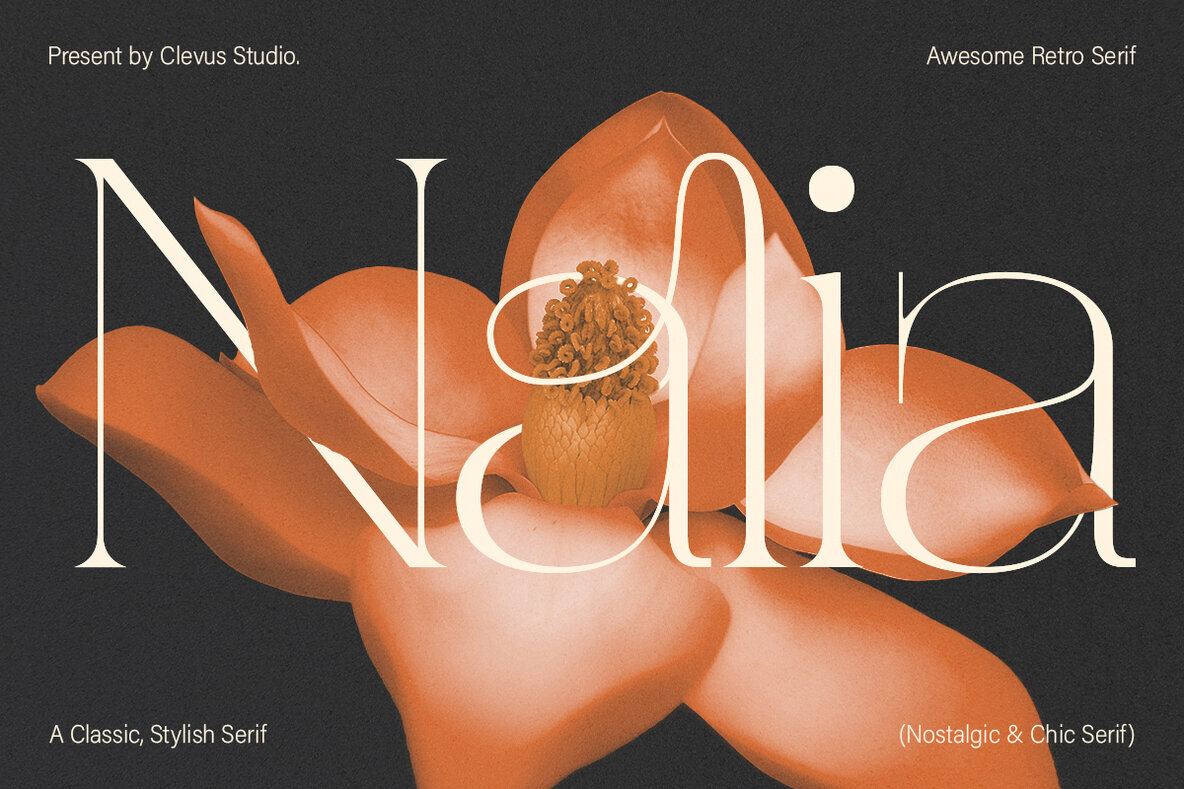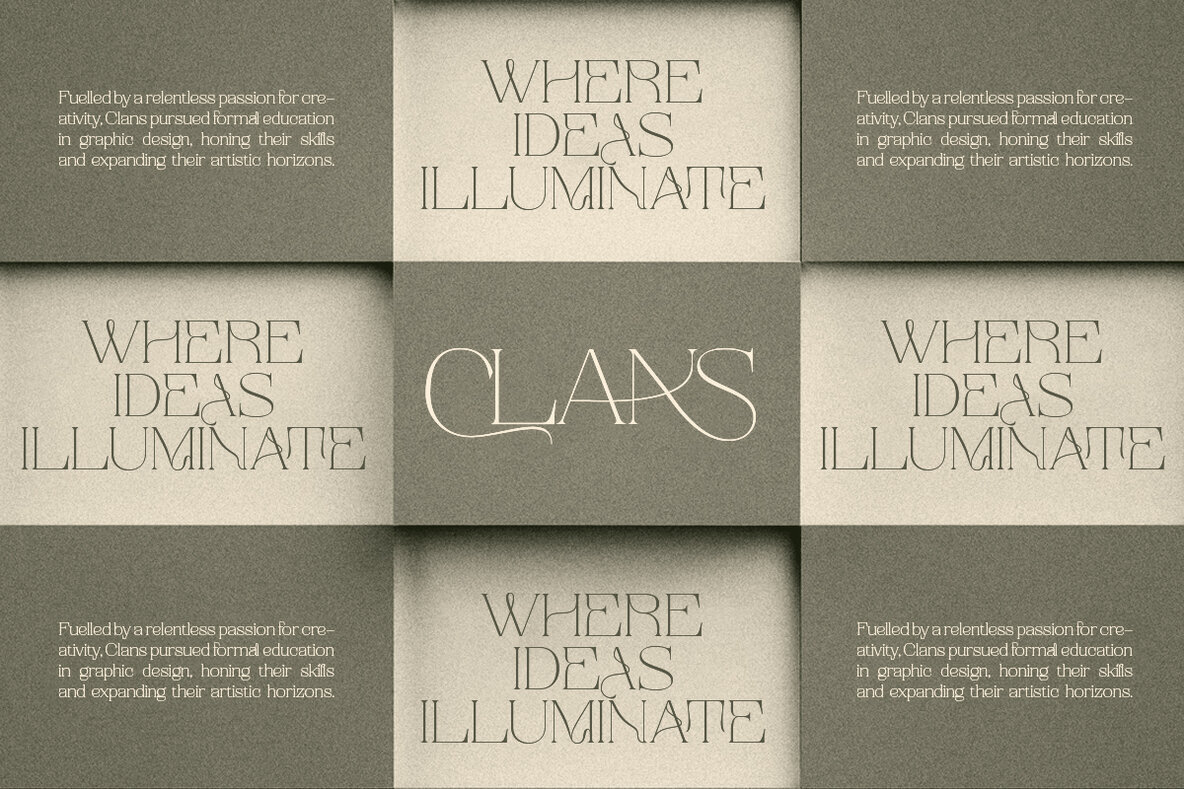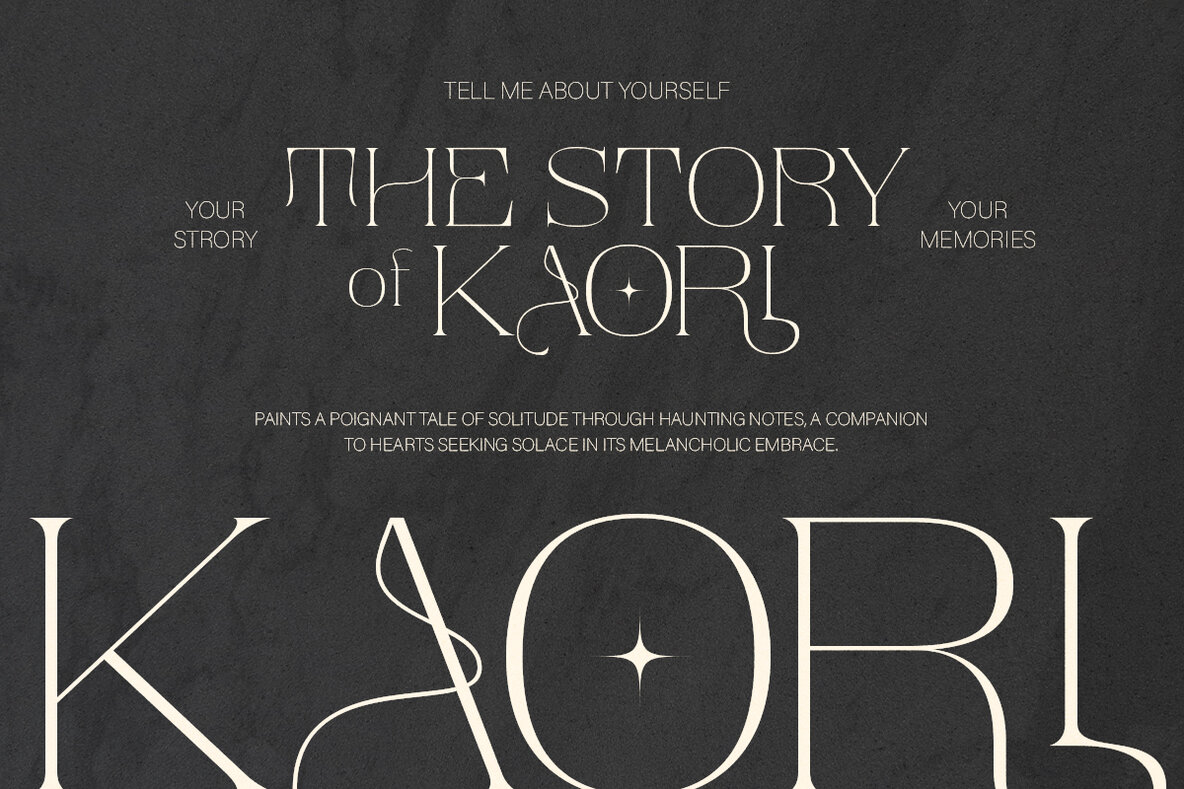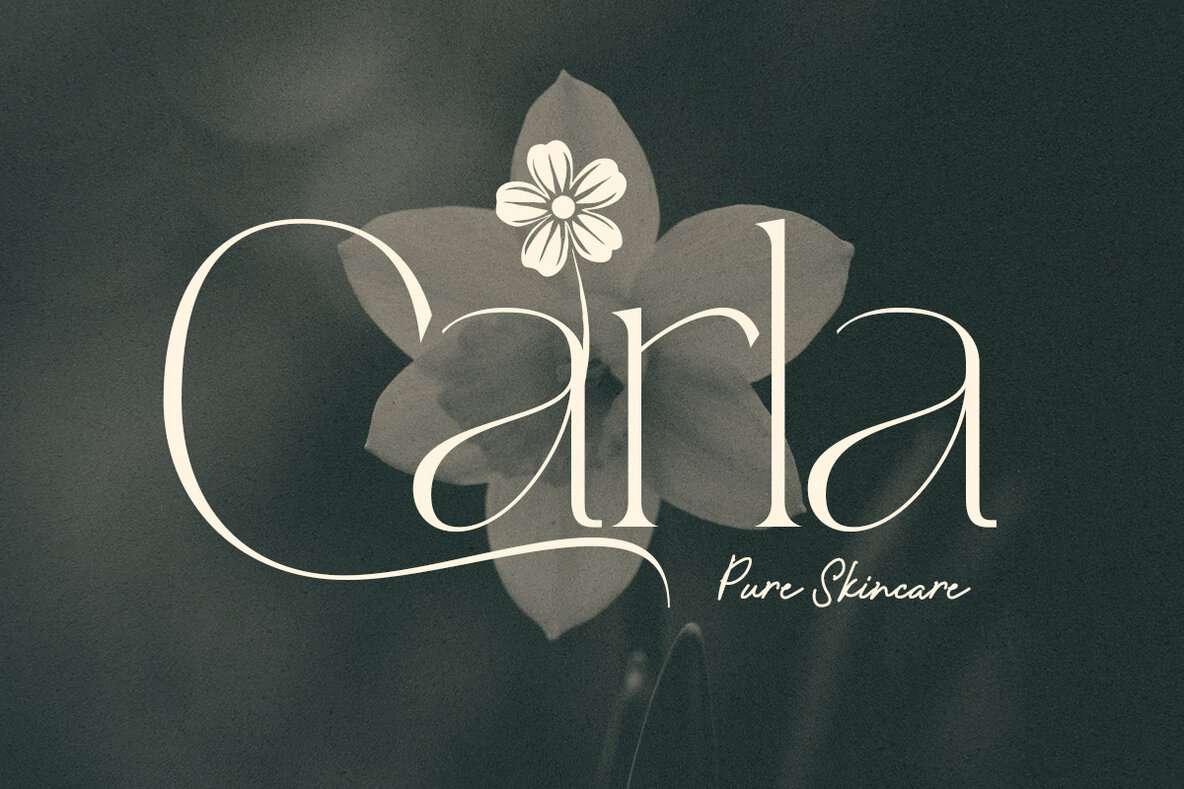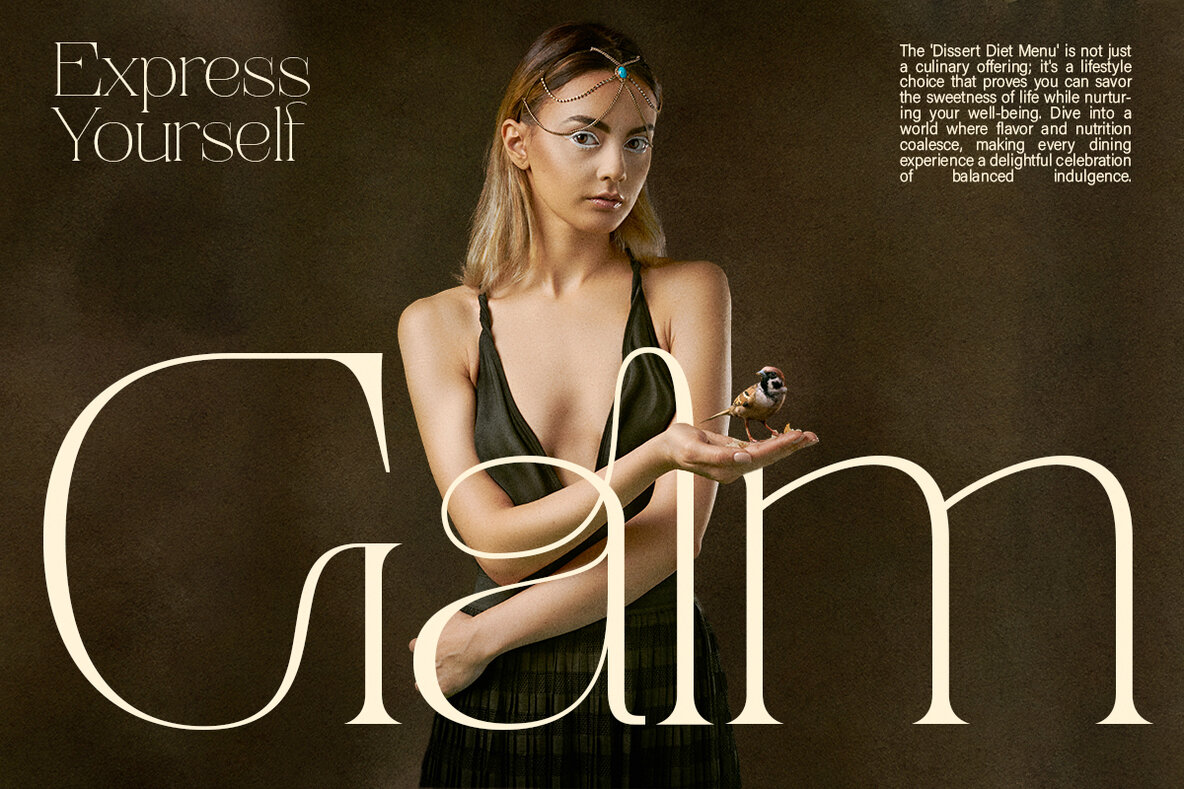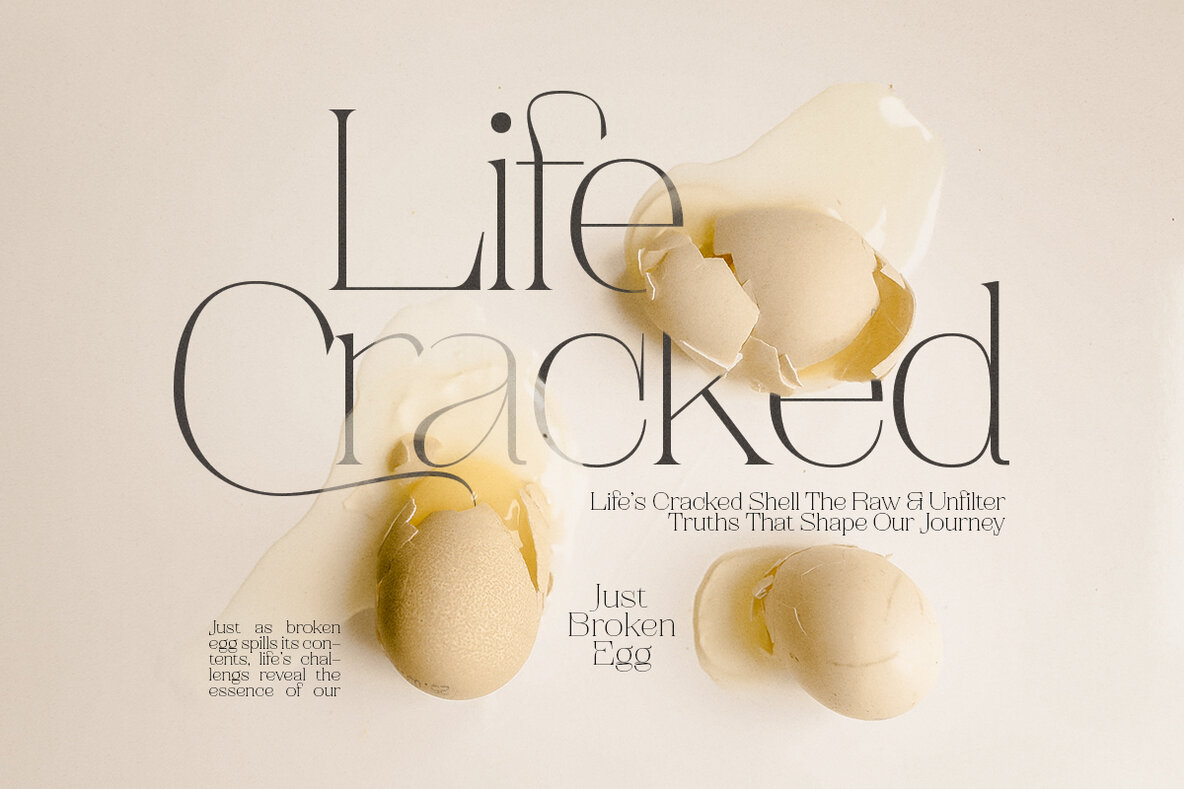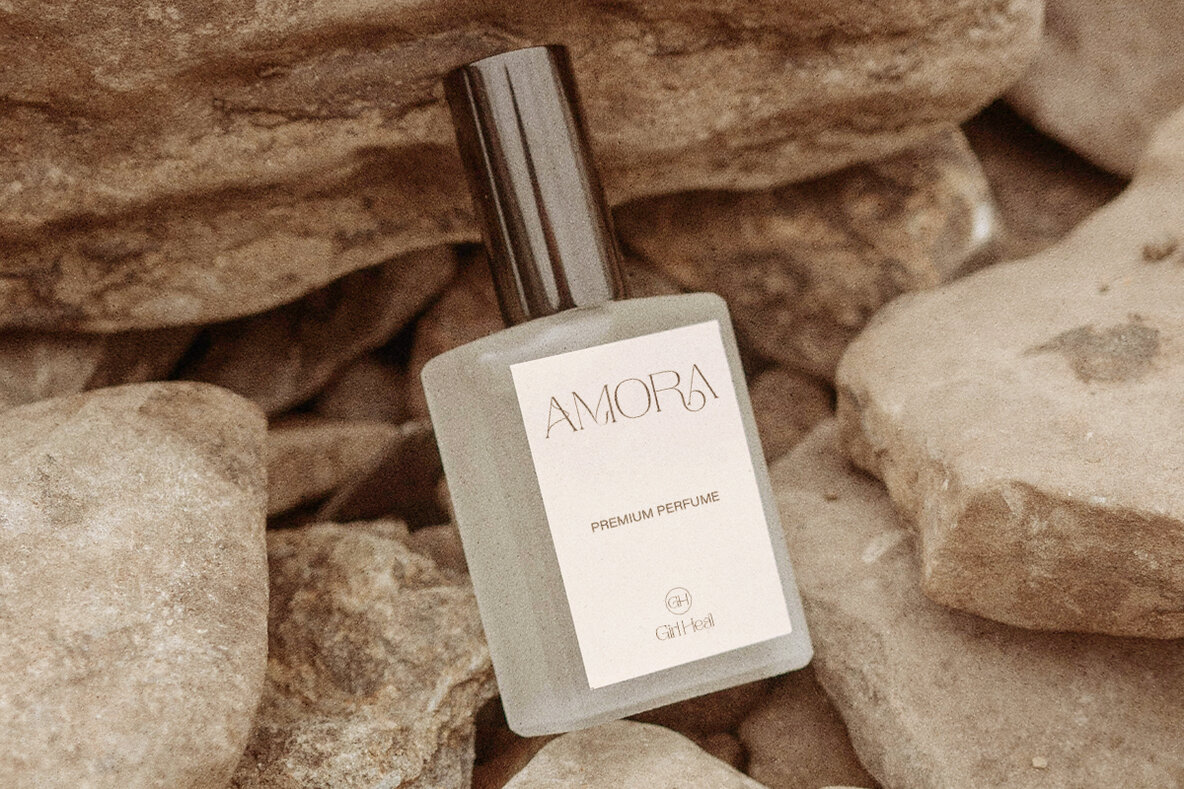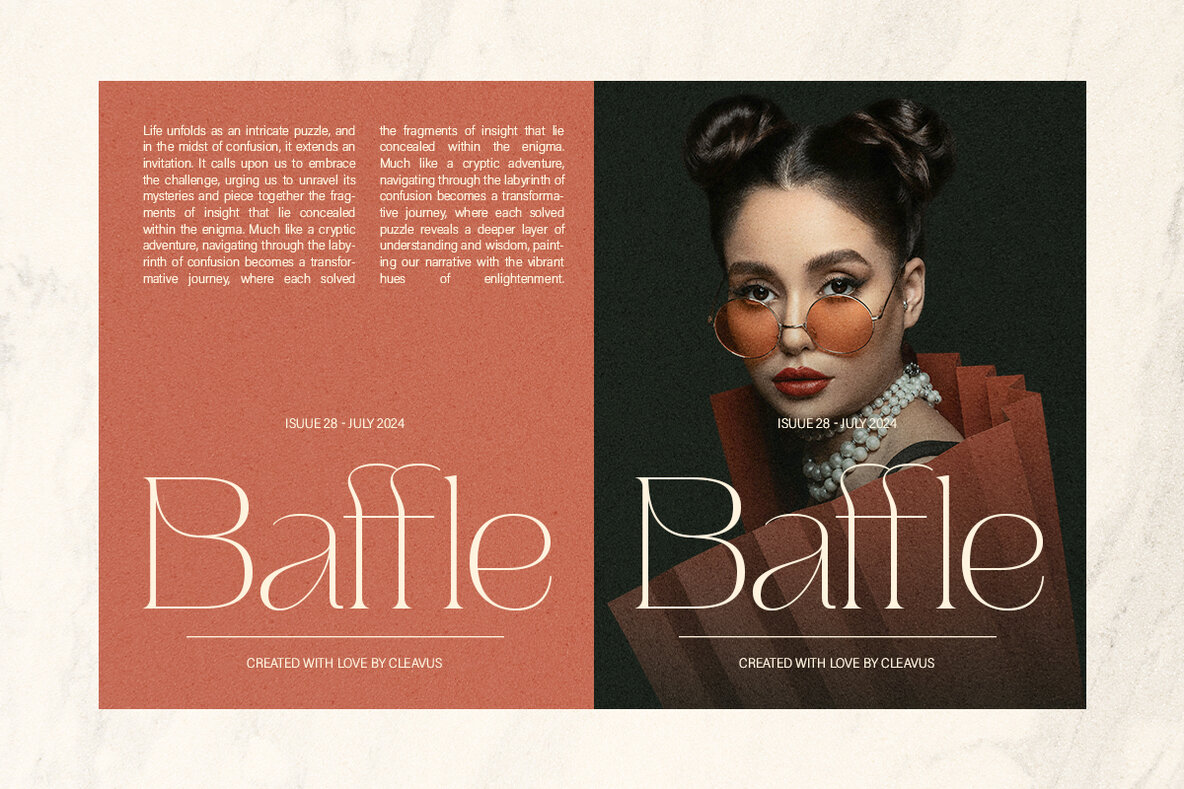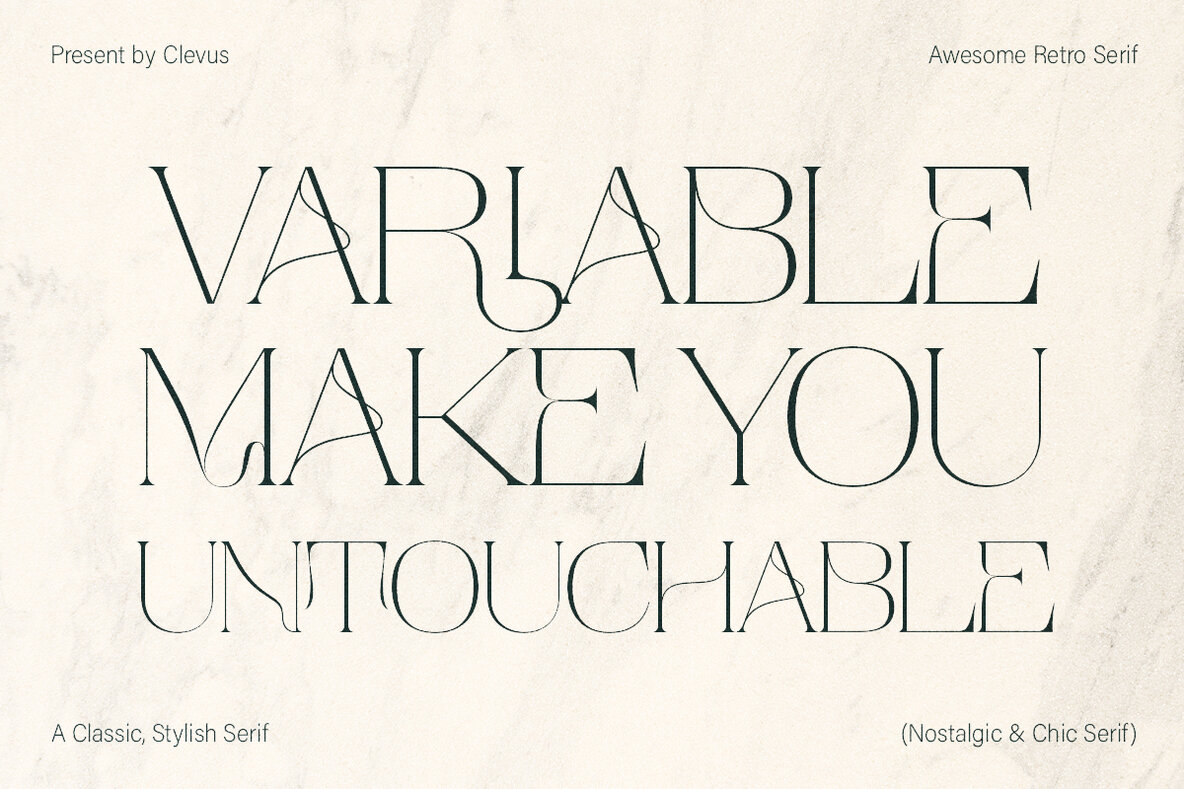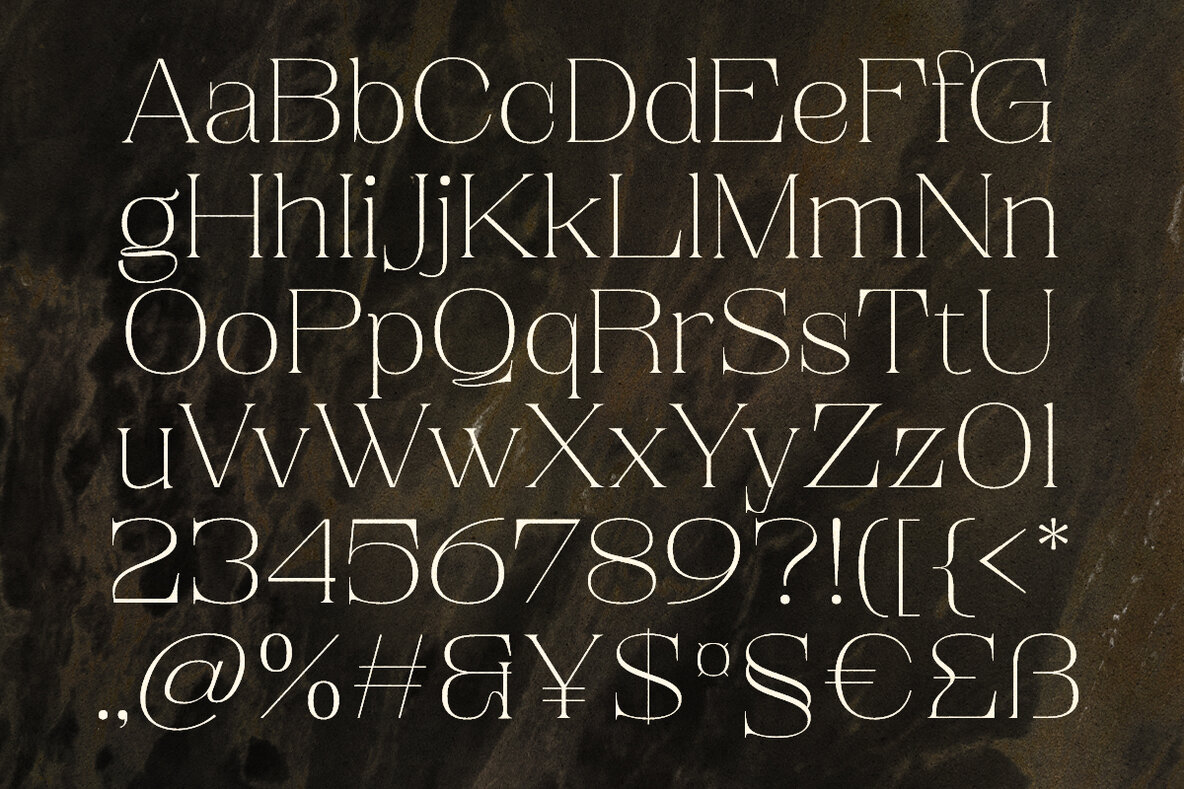
Eyana Font
Eyana Regular
Eyana is an elegant serif typeface characterized by modern ligatures and alternate classic designs, offering a distinct and contemporary aesthetic. Its unique style makes it suitable for a wide range of design projects, including luxury logos, book and movie titles, and brand identities. This typeface is ideal for projects that require a sophisticated and high-class appearance, such as fashion brands, magazines, and apparel design.
The versatility of Eyana allows it to excel in creating captivating quotes and expressive lettering. Its refined structure brings a touch of elegance to any creative endeavor, ensuring your designs stand out with a polished and professional look. Whether you're designing for print or digital media, Eyana provides the perfect balance of modern flair and timeless charm, enhancing the visual appeal of your project.